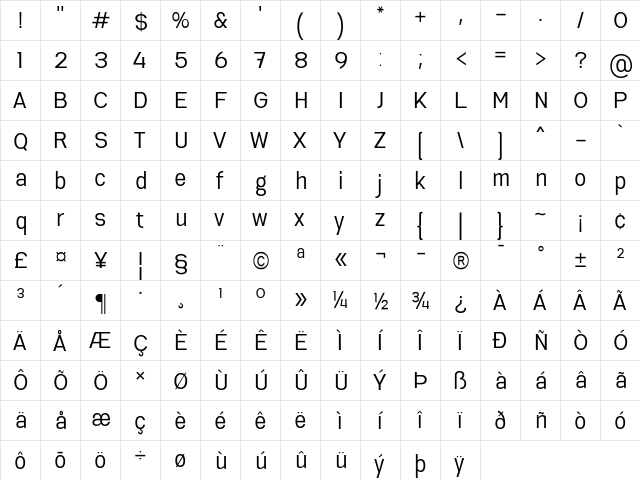
Serithai Regular
| Designer | Anupap Jaichumnan |
Design Context for Serithai Typeface
Serithai is a composed and adaptable typeface that performs quietly and consistently across a wide range of design contexts.
Pro Tip: Pair Serithai with a font of contrasting weight or personality to build a more expressive typographic hierarchy.